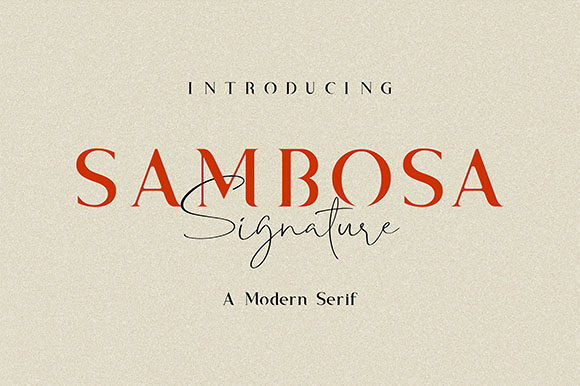
Sambosa Font - The Serif Font That Will Make Your Designs Shine!
Are you tired of the same old, boring fonts that everyone else is using? Do you want your designs to stand out from the crowd? Then you need Sambosa Font, the stunning serif font that will give your work the edge it needs to succeed.
Sambosa Font is a beautiful and elegant font that is perfect for any design project. Whether you're creating a logo, a website, or a social media post, Sambosa Font will add a touch of class and sophistication to your work.
"Sambosa Font is the most beautiful font I've ever used. It's so elegant and sophisticated, and it makes my designs look amazing."
"I've been using Sambosa Font for all of my logo designs, and I've never been happier with the results. It's the perfect font for creating a strong and memorable brand identity."
"Sambosa Font is the best font I've ever used for social media posts. It's so easy to read and it always makes my posts look professional and polished."